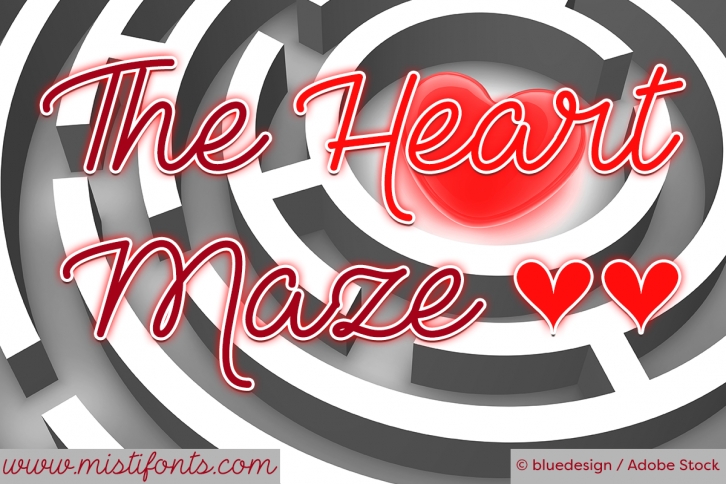
The Heart Maze is a great font that was designed by Misti Fonts. Imagine the amount of combinations you can create using this font! The archive is 2.3 MB and it was released on April 28, 2017. The Heart Maze looks beautiful on wedding invitations, greeting cards, logos, posters, labels, t-shirt designs, logos, business cards and is perfect for use in ink or watercolor works, fashion, magazines, packaging and food menus, children's books and more!